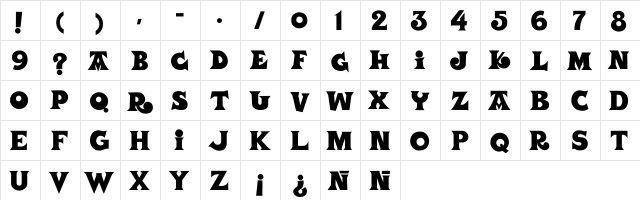
VASCA Regular
Design Context for VASCA Typeface
VASCA is a composed and adaptable typeface that performs quietly and consistently across a wide range of design contexts.